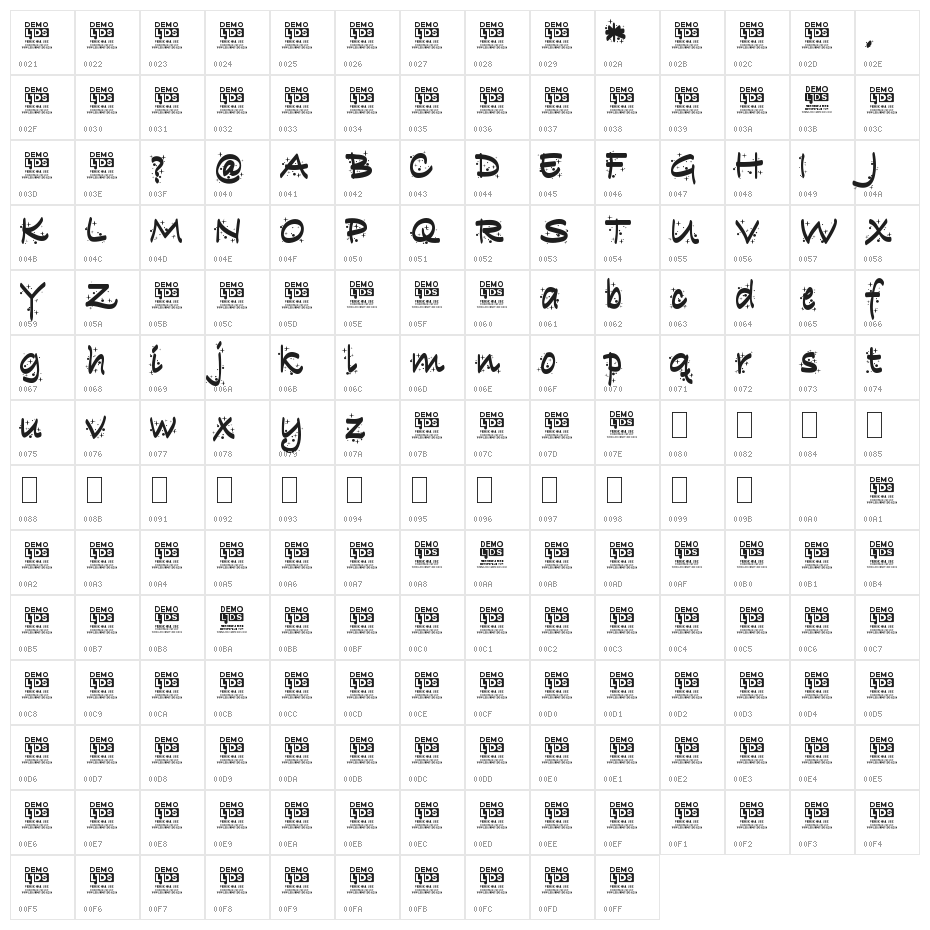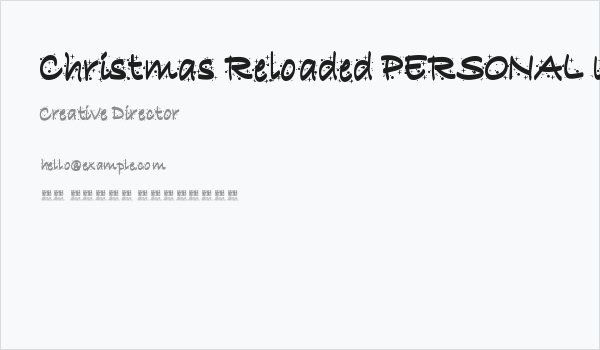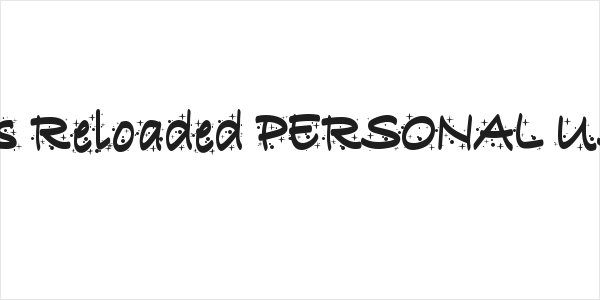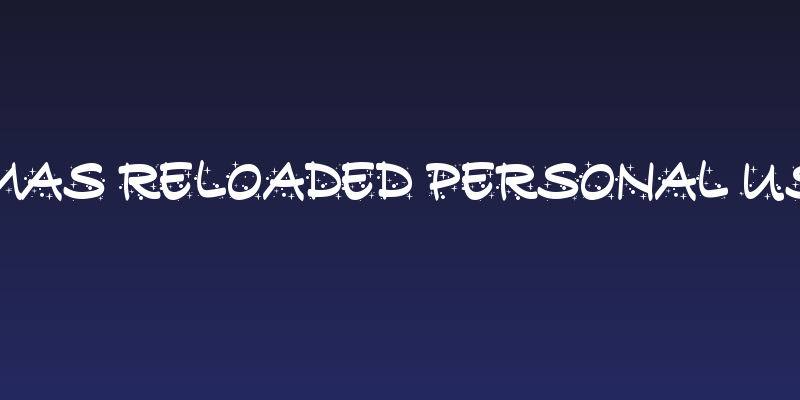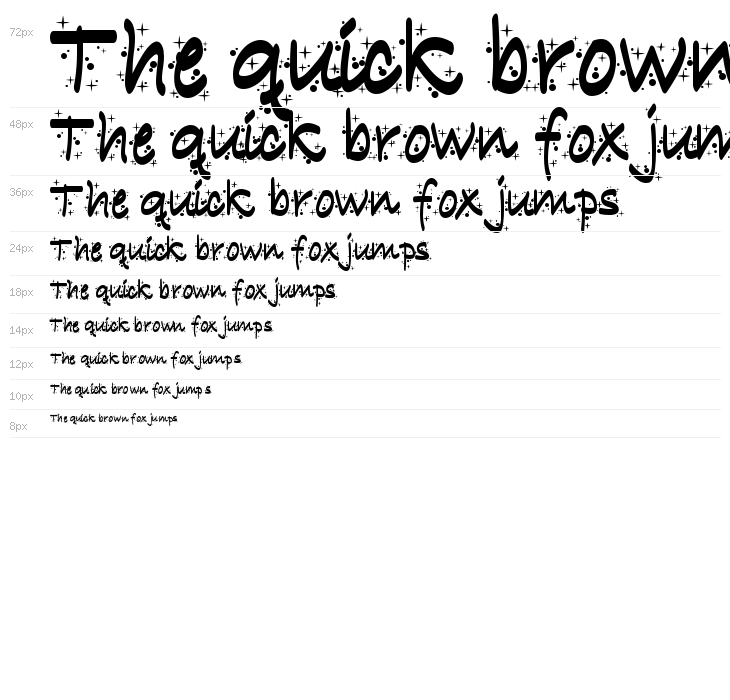
Christmas Reloaded PERSONAL USE DEMO Font
Christmas Reloaded PERSONAL USE DEMO Description
This font features a playful and festive design, incorporating whimsical elements that evoke a sense of holiday cheer. Each character is adorned with small star-like decorations, adding a sparkling effect that enhances its decorative appeal. The strokes are bold and slightly irregular, giving it a hand-drawn appearance that is both charming and approachable. The uppercase and lowercase letters maintain a consistent style, with a slight slant that adds to the dynamic feel of the font. The numbers and special characters are equally adorned, ensuring a cohesive look across all text elements.
| Use Case | Headlines, Logos, Decorative text |
| Proposed Projects | Ideal for holiday-themed projects, greeting cards, festive banners, and playful branding. |